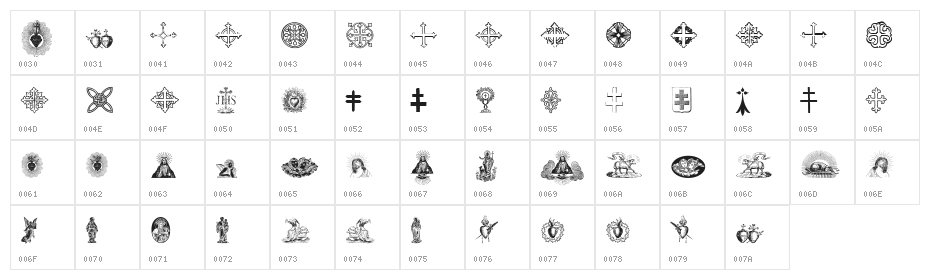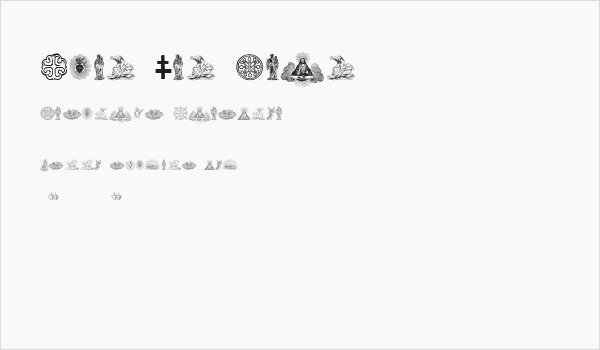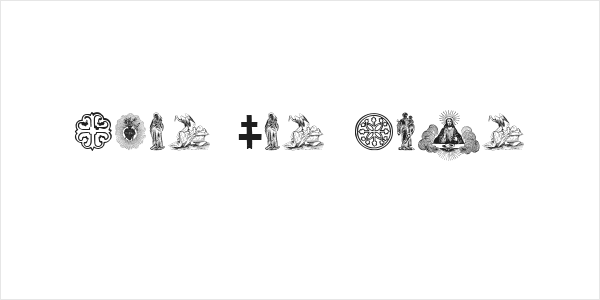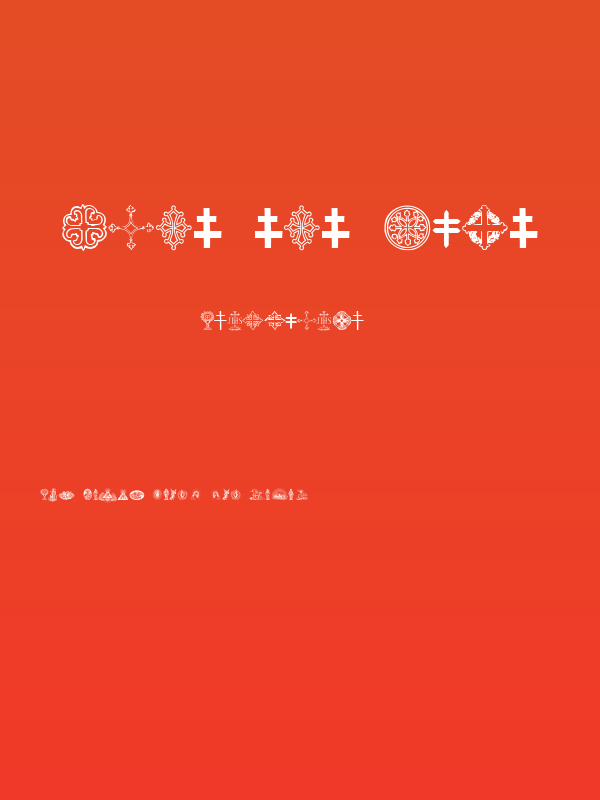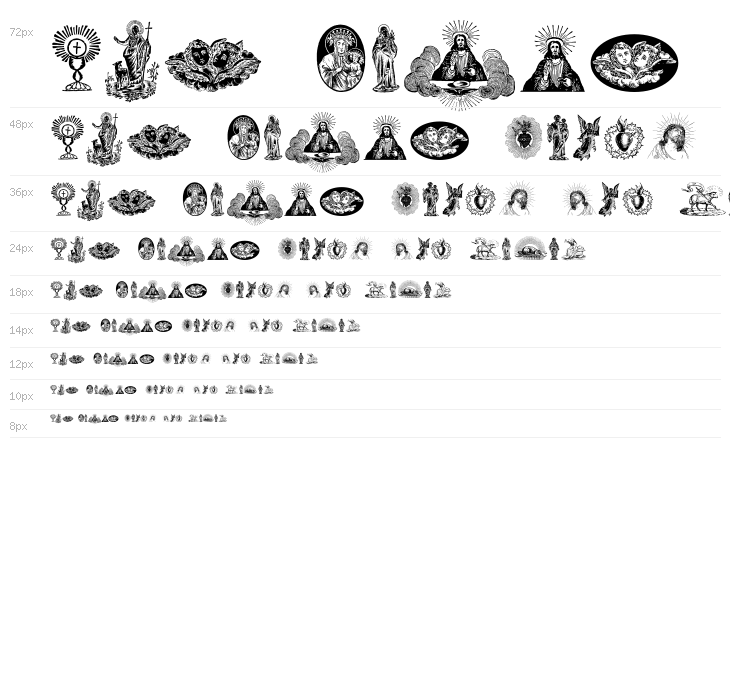
Laus Sus Cris Font
Laus Sus Cris Description
A decorative collection of religious and Christian-themed dingbats, including ornate crosses, sacred hearts, angels, saints, and intricate iconography, rendered in a detailed, vintage engraving style.
| Overall Style | Vintage, Decorative, Religious |
| Use Case | Decorative elements, Borders, Themed illustrations |
| Proposed Projects | Religious publications, church bulletins, invitations, certificates, decorative borders, and themed graphic design. |